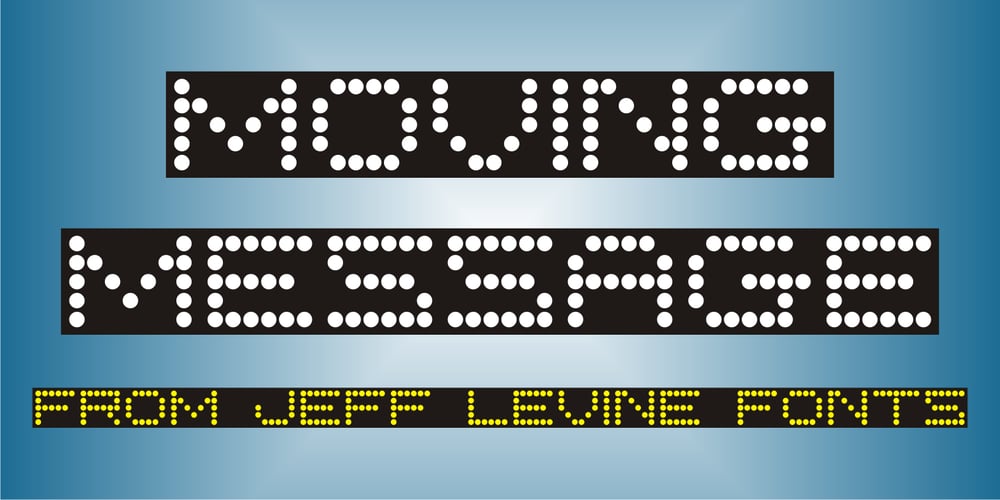
Moving Message JNL Font Family was designed by Jeff Levine and published by Jeff Levine. Moving Message JNL contains 1 styles and family package options. A vintage printer’s cut for the masthead of the “Fed-O-Gram” (a monthly publication of the Farm Bureau Federation, Inc.) had its title set in letters that emulated a moving message board. This design formed the basis for what is Moving Message JNL.